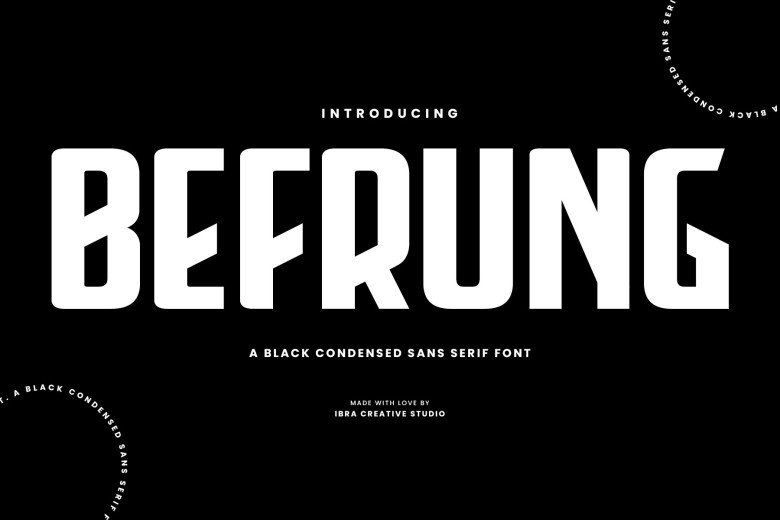
Befrung Font
Berfung is an elegant dark black sans serif font which exudes modern sophistication. Boasting slim, tall letters with consistent broad strokes and sleek edges that give this typeface its modern aesthetic, Berfung offers great balance between aesthetics and efficiency in space.
Ideal for headlines that stand out, striking signage applications or stylish branding applications; Berfung is compact enough to maximize efficiency for efficient use in limited areas.
Befrung Sans Serif Font